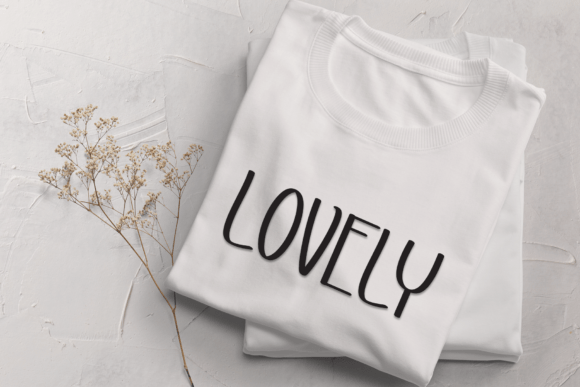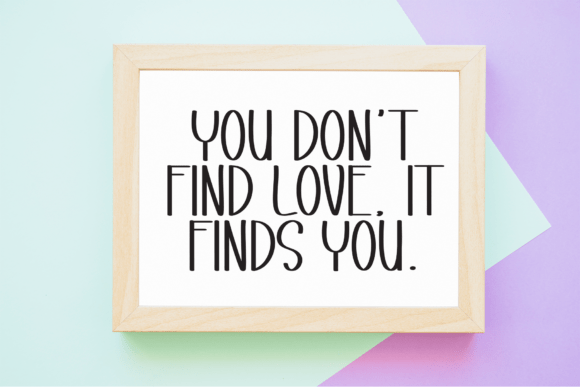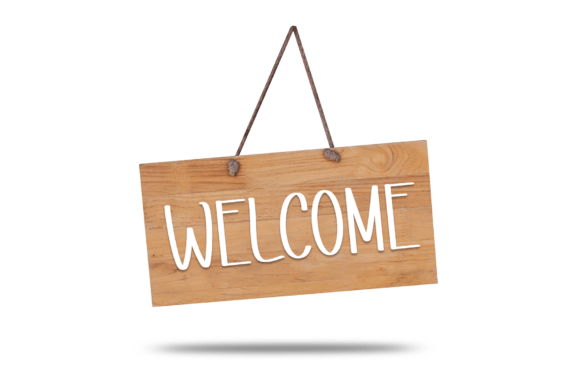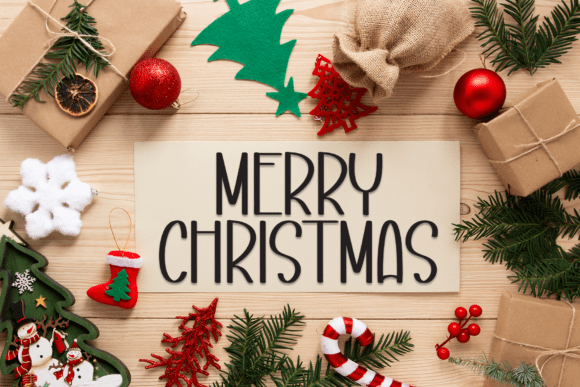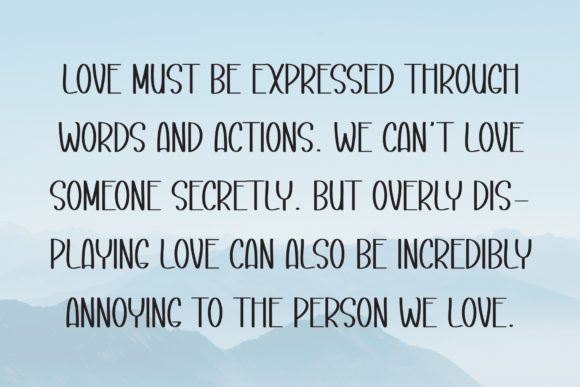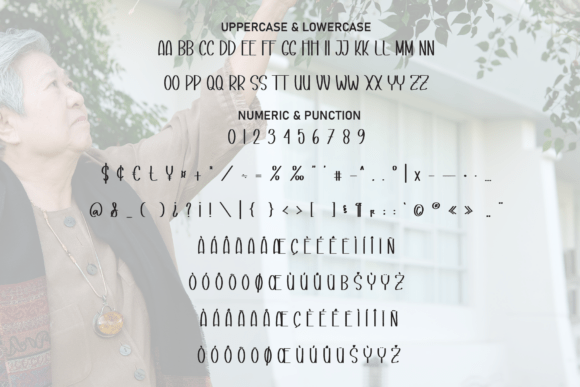
Discover the Enchanting Grandma House Font: A Hand-Sketched Masterpiece
Are you searching for a font that embodies the warmth and charm of a bygone era? Look no further than the Grandma House Font, a captivating display font that is sure to capture your heart. Meticulously hand-sketched to evoke a genuinely heart-stirring aesthetic, this enthralling typeface is the perfect resource for designers and crafters seeking to add a touch of whimsy and romance to their projects.
The Story Behind Grandma House Font
Inspired by the nostalgic charm of handwritten letters and vintage signs, Grandma House Font is a labor of love that combines adventurous spirit with passionate creativity. Each letter has been carefully crafted to convey a sense of warmth, comfort, and playfulness, making it an ideal choice for a wide range of design applications.
What Makes Grandma House Font So Special?
So, what sets Grandma House Font apart from other fonts? Here are just a few reasons why this font is sure to become your new favorite:
• Hand-sketched with love: Every letter has been meticulously hand-sketched to ensure a unique, organic feel that is impossible to replicate with digital fonts.
• Perfect balance of charm and simplicity: Grandma House Font strikes the perfect equilibrium between charm and straightforwardness, making it easy to read and understand while still conveying a sense of personality and whimsy.
• Versatile and adaptable: Whether you’re designing wedding invites, greeting cards, or any other type of project, Grandma House Font is the perfect choice.
Use Grandma House Font to Create Enchanting Designs
Grandma House Font is the perfect resource for designers and crafters seeking to add a touch of magic to their projects. Here are just a few ideas to get you started:
• Wedding Invites: Create beautiful, one-of-a-kind wedding invites that set the tone for a romantic and unforgettable celebration.
• Greeting Cards: Add a personal touch to your greeting cards with Grandma House Font, perfect for birthdays, holidays, and special occasions.
• Signs and Posters: Use Grandma House Font to create eye-catching signs and posters that are sure to grab attention.
Why Designers and Crafters Love Grandma House Font
Don’t just take our word for it! Designers and crafters around the world are falling in love with Grandma House Font, and here’s why:
• High-quality design: Each letter has been carefully crafted to ensure a high-quality design that is both visually appealing and effective.
• Unique and distinctive: Grandma House Font is a truly unique and distinctive font that will set your designs apart from the crowd.
Get Ready to Fall in Love with Grandma House Font
If you’re looking for a font that will add a touch of magic to your designs, look no further than Grandma House Font. With its captivating charm, adventurous spirit, and passionate creativity, this enthralling typeface is sure to become your new favorite. So why wait? Dive into the irresistible allure of Grandma House Font today and discover a world of creative possibilities!
In conclusion, Grandma House Font is a hand-sketched masterpiece that is sure to capture your heart. With its unique blend of charm, simplicity, and versatility, this font is perfect for designers and crafters seeking to add a touch of whimsy and romance to their projects. Whether you’re designing wedding invites, greeting cards, or any other type of project, Grandma House Font is the perfect choice. So why wait? Discover the enchanting world of Grandma House Font today and start creating your own magical designs!